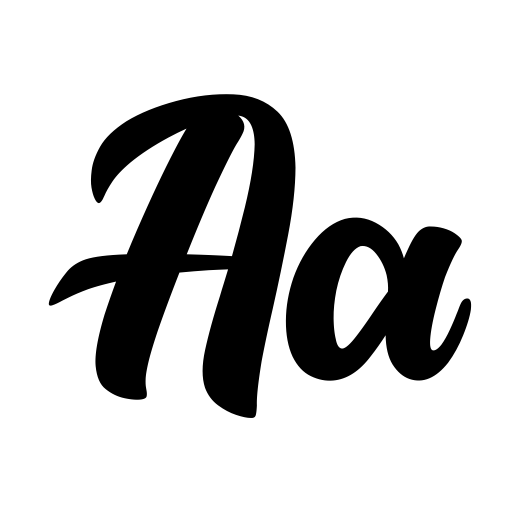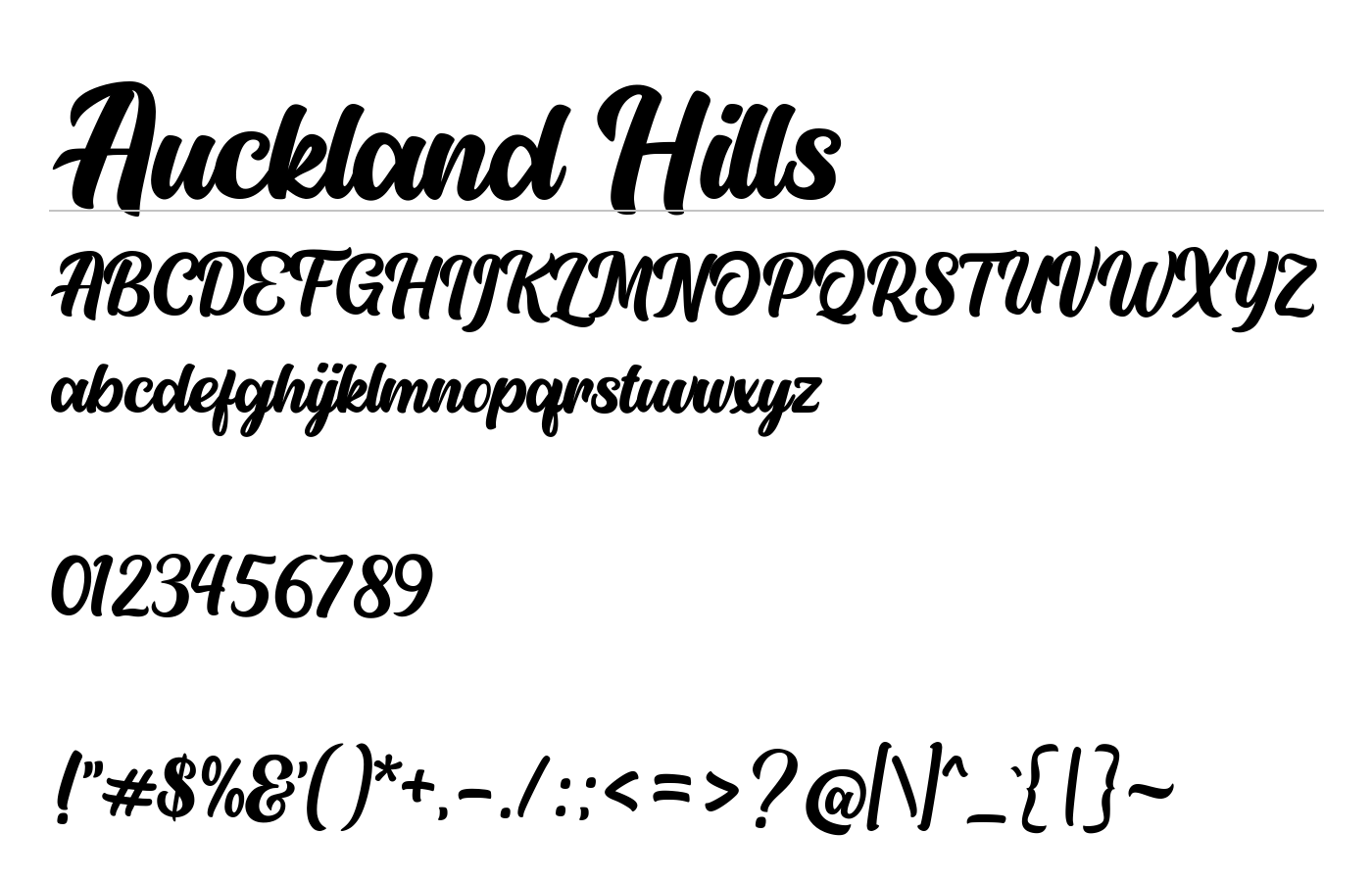
Auckland Hills is a bold, lively script font with smooth, rounded strokes and a casual yet confident feel. Its medium-high x-height and slightly condensed letterforms make it highly readable while preserving a friendly, handwritten charm, perfect for branding, packaging, and eye-catching headlines. This font works well where a warm, approachable, and modern personality is desired.
Auckland Hills Font
About Auckland Hills Font